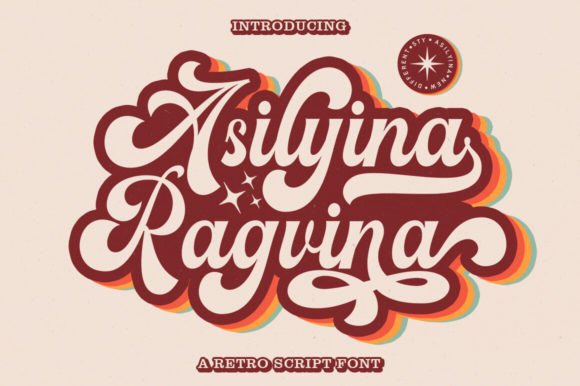
Prepare to be captivated by Asilyina Ragvina, a script font family that exudes elegance and charm. Its curves and lines flow with such grace, creating a visual masterpiece that will leave you breathless. With a collection of 355 characters, Asilyina Ragvina is a versatile font that can transform your creative visions into reality.
Immerse yourself in the world of invitation cards, product logos, food brands, and logos, where Asilyina Ragvina shines as the perfect companion. Its timeless beauty adds a touch of sophistication to any project, leaving a lasting impression on your audience.
Unleash your creativity and let Asilyina Ragvina guide you to new heights of design excellence. Its PUA encoding grants you effortless access to a treasure trove of glyphs and ligatures, empowering you to craft captivating designs that speak volumes.
Asilyina Ragvina is more than just a font; it's an artistic journey waiting to be explored. Its classic retro style evokes a sense of nostalgia, while its modern twist ensures that your creations remain relevant and alluring.